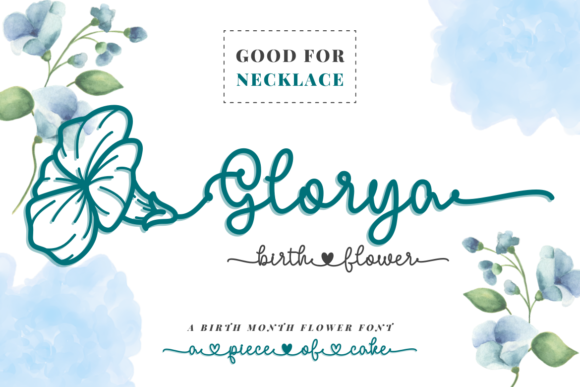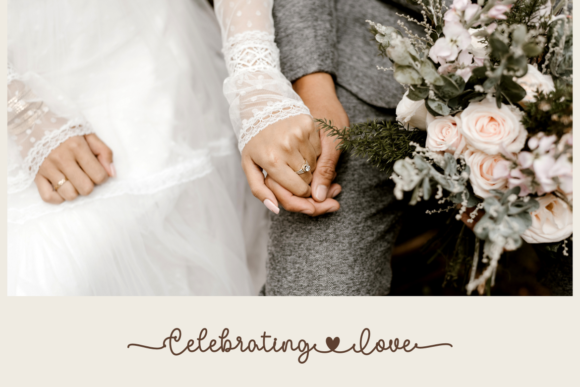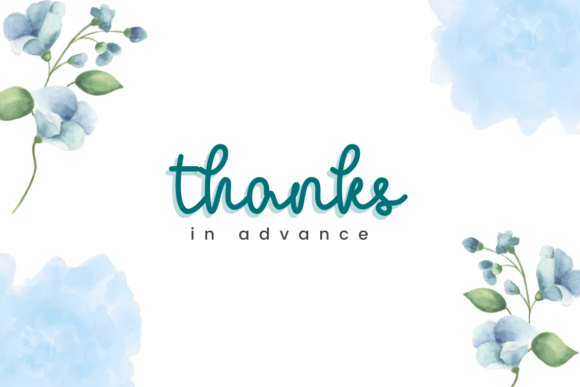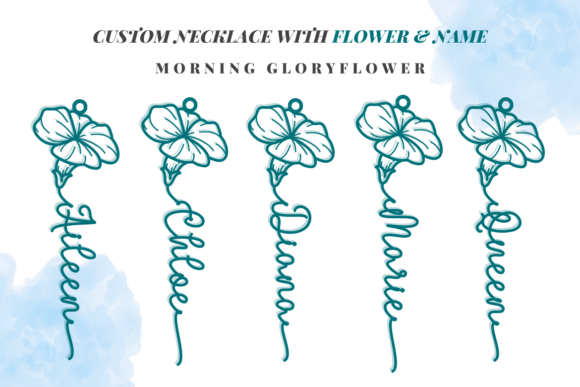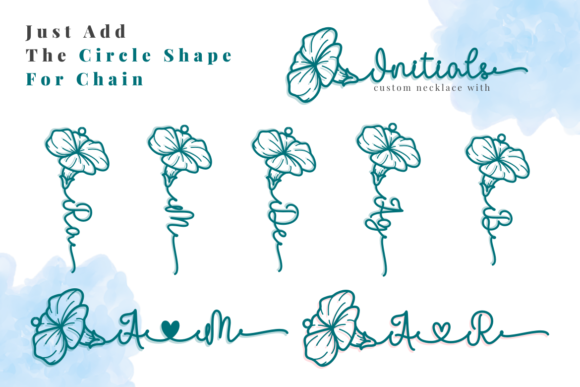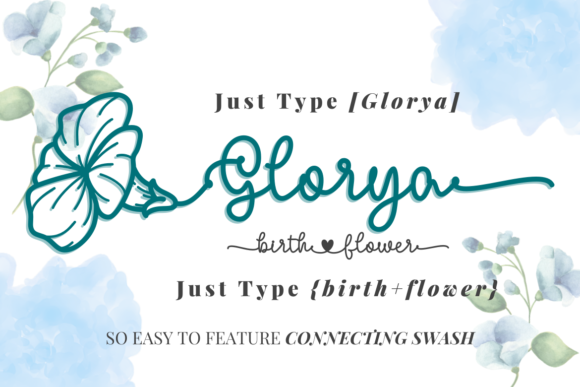
About Glorya Birth Flower Font
Glorya Birth Flower is a stunning vintage-inspired script font that exudes timeless elegance and sophistication. With its carefully crafted design and artistic flair, this font is a versatile choice that can elevate a wide range of creative projects.
For Instagram posts and social media graphics, Glorya Birth Flower brings a touch of vintage charm to your visuals. Its unique letterforms and graceful curves create a captivating visual impact that can make your posts stand out in a sea of content. Whether you’re sharing quotes, announcements, or promotional images, this font adds a touch of artistry and elegance that resonates with your audience.
When it comes to DIY projects and crafting, Glorya Birth Flower truly shines. Its calligraphy-inspired script lends itself beautifully to creating handmade invitations, cards, and decor items. Whether you’re planning a wedding, a special event, or simply want to add a personalized touch to your home, this font can help you achieve a refined and artistic look.
Glorya Birth Flower’s versatility extends to branding as well. It’s an excellent choice for logos, packaging, and branding materials. The vintage aesthetic combined with a touch of elegance can help create a distinct and memorable brand identity that captures the essence of craftsmanship and creativity.
The font’s intricate details and carefully designed characters make it an excellent fit for projects that require a high level of attention and customization. Its elegant curves and flourishes can add a touch of luxury to product labels, book covers, and editorial designs.
One of the standout features of Glorya Birth Flower is its ability to transform any creative idea into a true piece of art. Its timeless style and artistic elements can add depth and character to your designs, evoking a sense of nostalgia and sophistication.
Whether you’re a seasoned designer or a DIY enthusiast, Glorya Birth Flower offers a wide range of possibilities for expressing your creativity. Its vintage charm, elegant touch, and calligraphy-inspired script make it a font that can truly turn ordinary projects into works of art. Embrace the beauty and versatility of Glorya Birth Flower to bring a touch of vintage elegance to your creative endeavors.